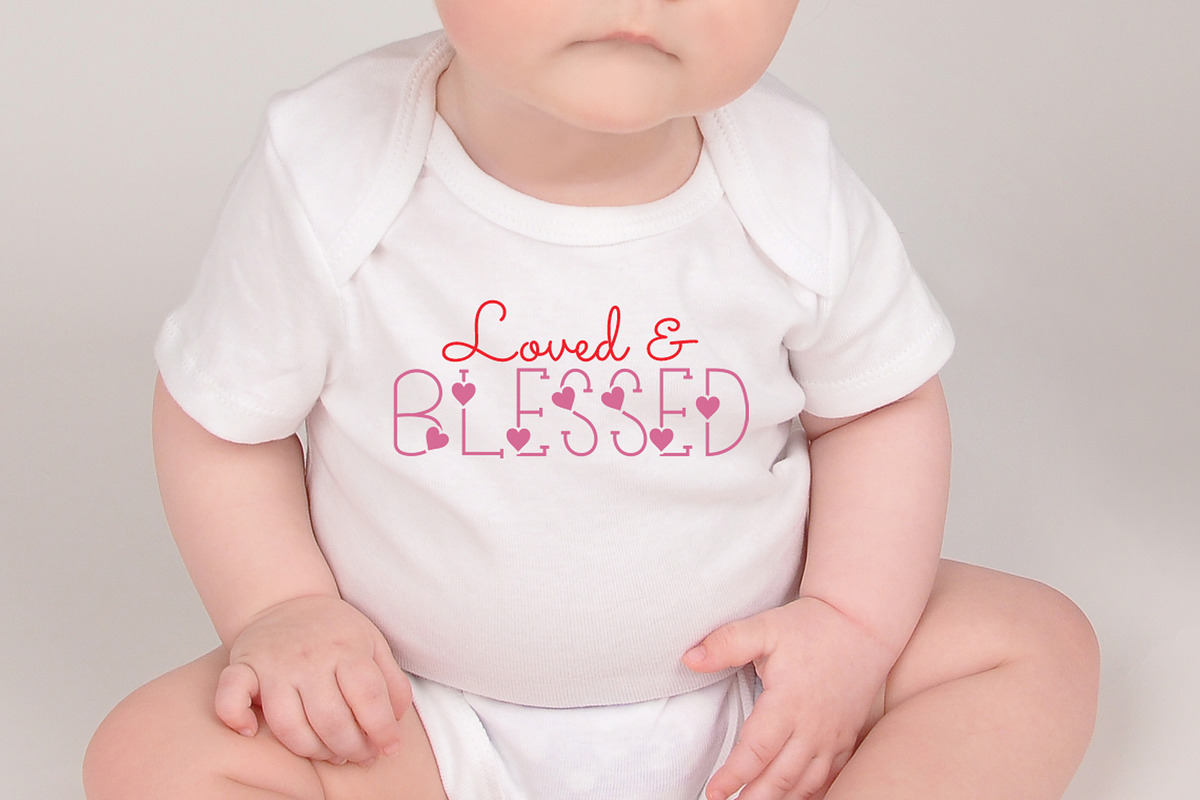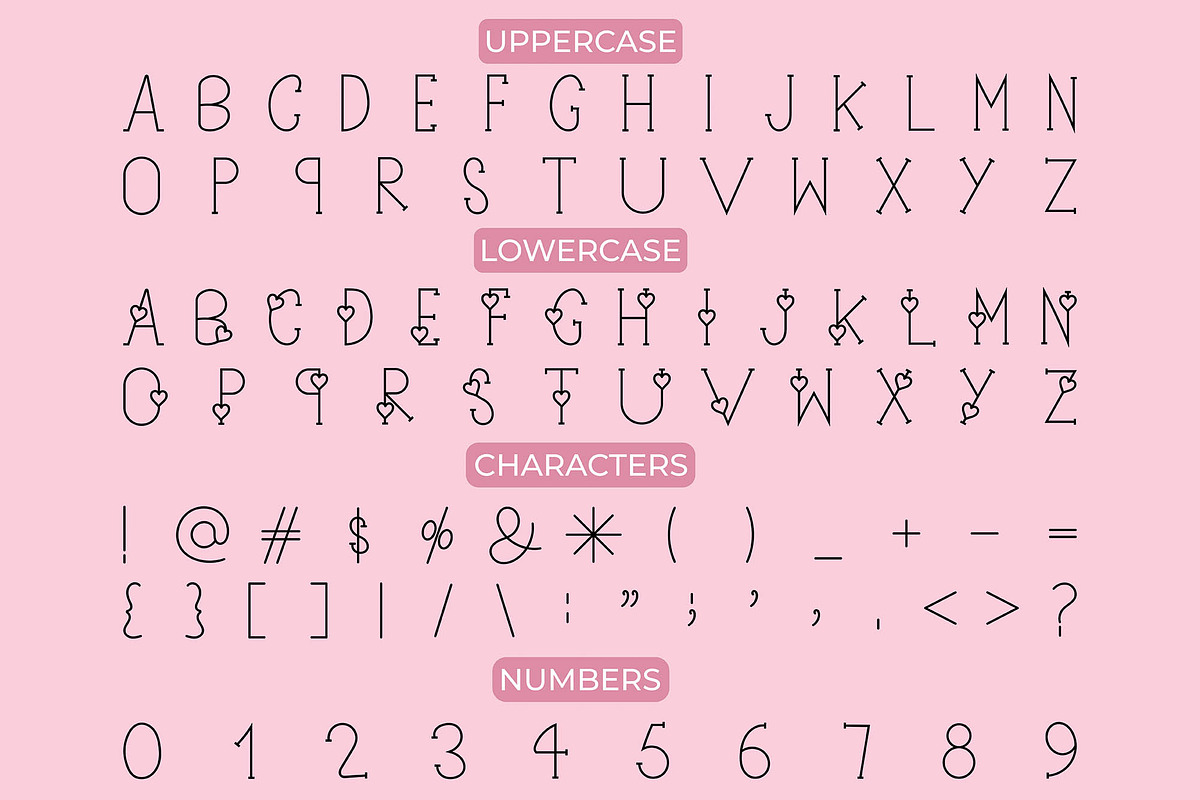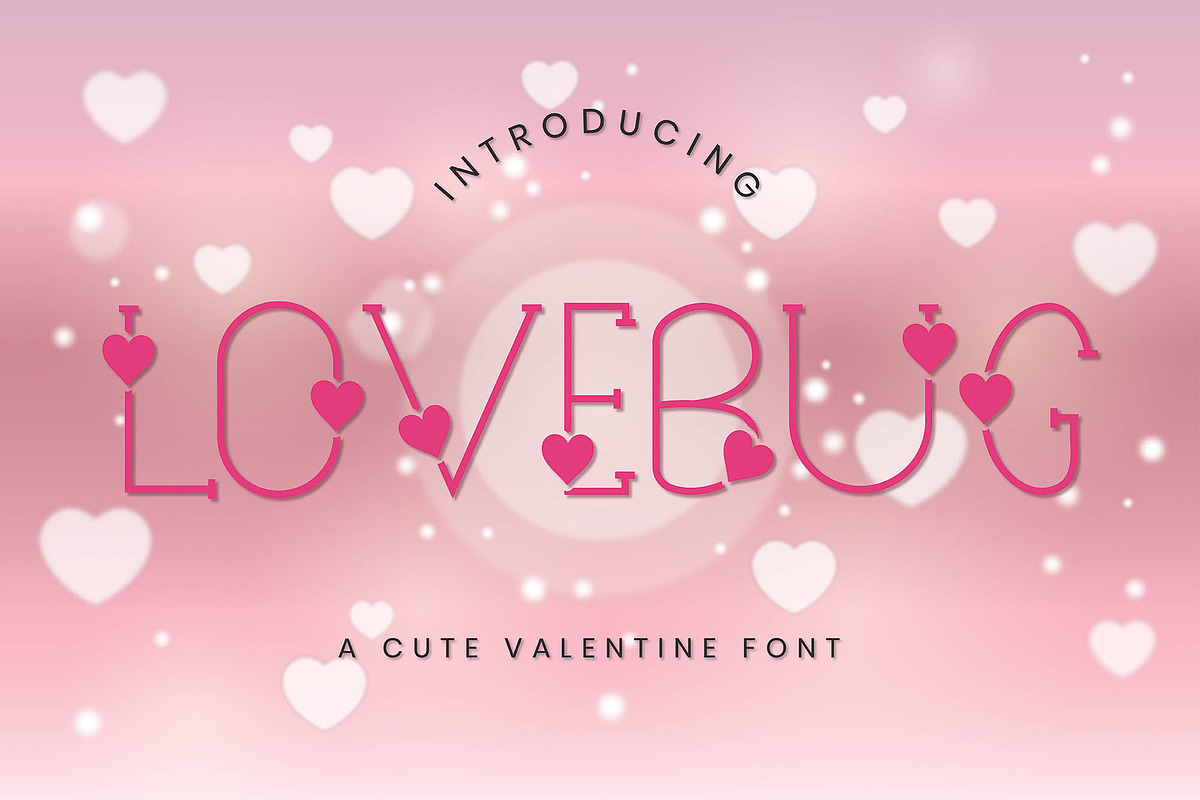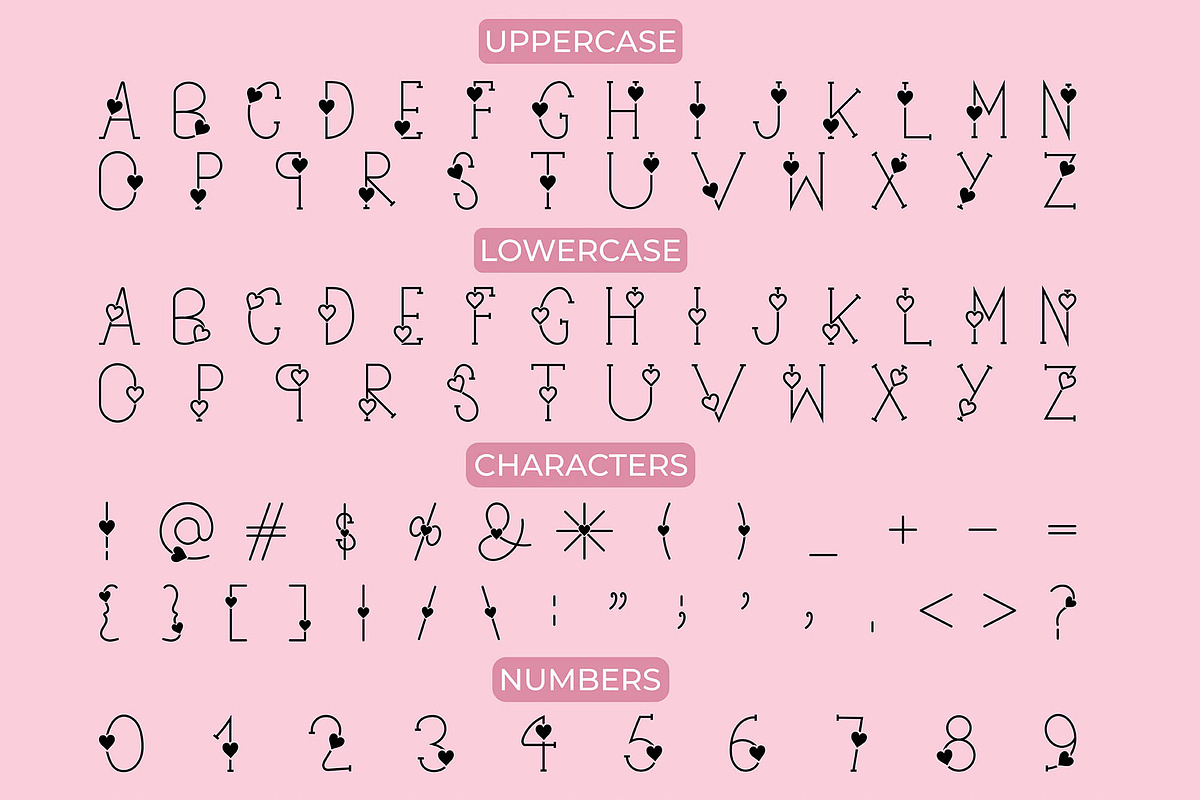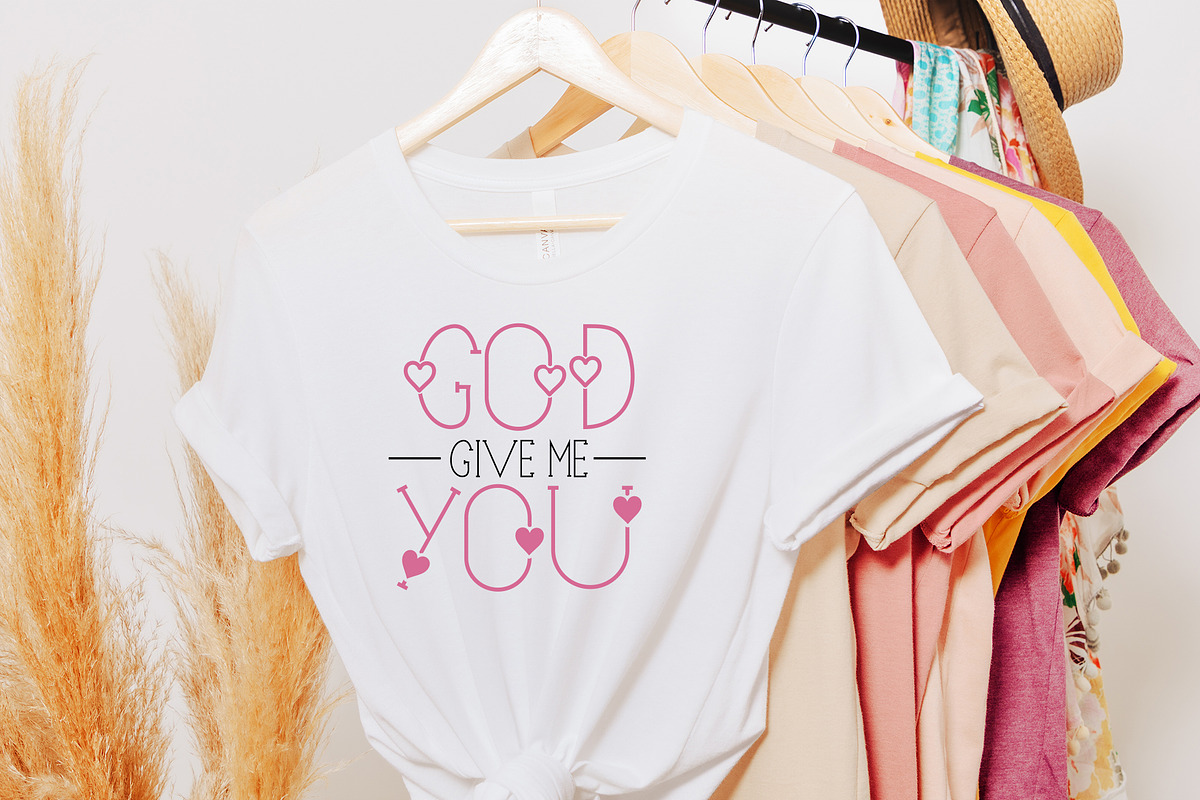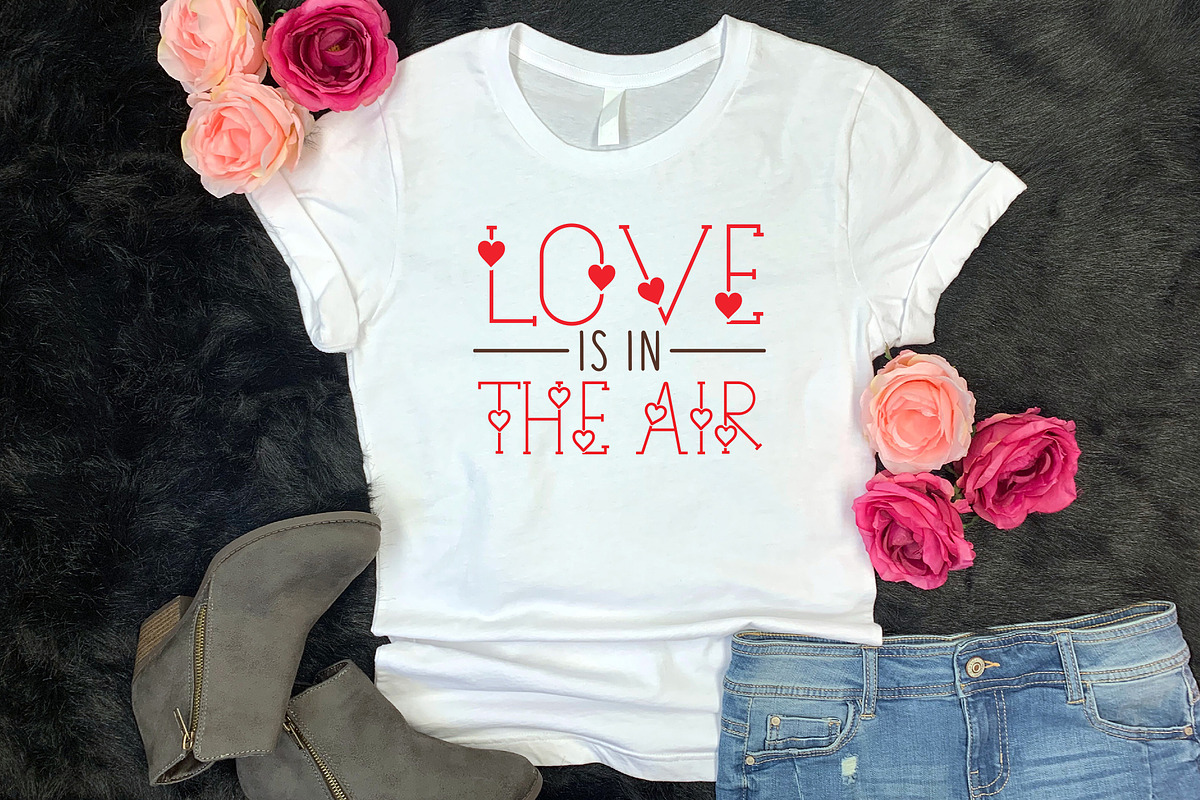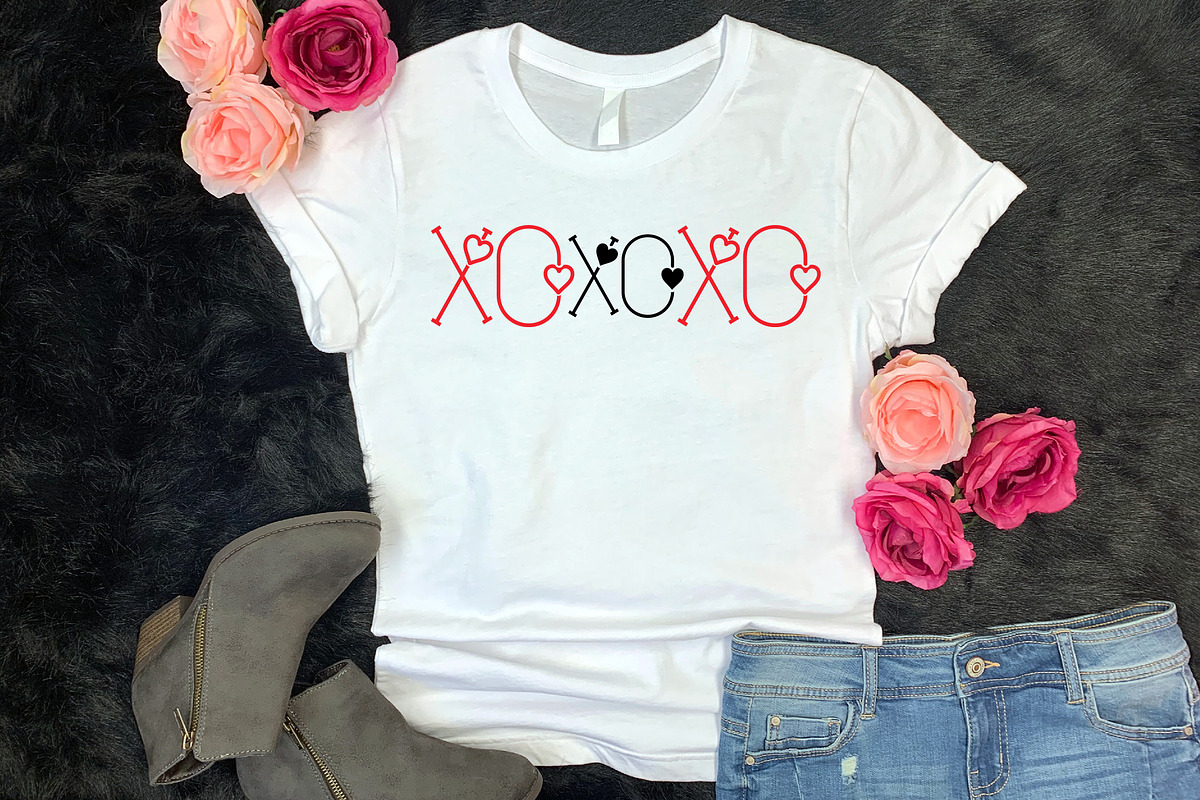
Lovebug - A Cute Valentine Font
Lovebug is a cute, charming and playful valentine display font with romantic feels, perfect for crafting, branding and decorating any Valentine’s Day project. It’s also suitable for t-shirts, mugs, home décor, greeting cards, poster, magazine, packaging, posters, shopping bags, book covers, and more.